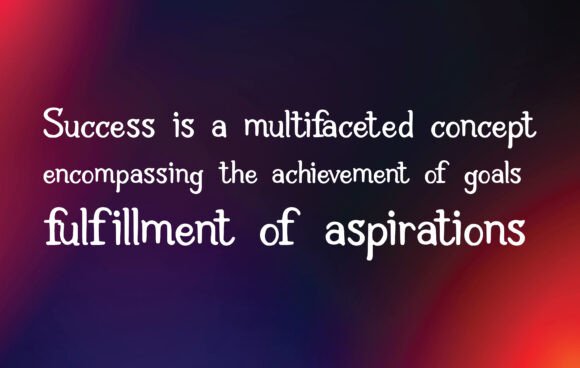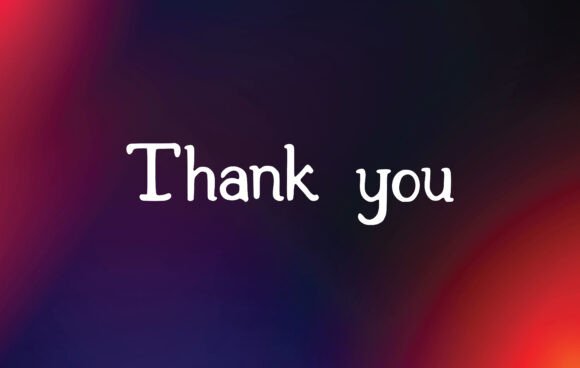
Introducing Gaura Font: Elevate Your Creative Projects with Elegance
Are you a designer, craftsperson, or creative enthusiast looking for a font that can take your projects to the next level? Look no further than Gaura Font, a stunning handwritten font that is sure to captivate your audience. With its unique blend of elegance and playfulness, Gaura Font is the perfect choice for creating eye-catching logos, branding, and quotes that leave a lasting impression.
The Beauty of Gaura Font
Gaura Font is a lovely and beautiful handwritten font that boasts a distinctive charm. Its flowing lines, delicate curves, and subtle imperfections give it a personal and human touch that sets it apart from more traditional fonts. Whether you’re looking to create a sophisticated brand identity or a whimsical design, Gaura Font is the perfect tool to bring your vision to life.
Unleash Your Creativity with Gaura Font
Gaura Font has the potential to take your creative ideas to the highest level. Its versatility and expressiveness make it an ideal choice for a wide range of design projects, from logos and branding to quotes and social media graphics. With Gaura Font, you can:
- Create stunning logos that capture the essence of your brand
- Develop a consistent visual identity across all your marketing materials
- Add a touch of elegance and sophistication to your designs
- Stand out from the crowd with a unique and eye-catching font
Why Choose Gaura Font?
So why choose Gaura Font over other fonts? Here are just a few reasons why Gaura Font stands out:
- Unique and distinctive: Gaura Font has a one-of-a-kind look that will set your designs apart from the crowd.
- Highly versatile: Gaura Font can be used for a wide range of design projects, from logos and branding to quotes and social media graphics.
- Elegant and sophisticated: Gaura Font adds a touch of elegance and sophistication to any design.
- Easy to read: Despite its ornate appearance, Gaura Font is highly legible and easy to read.
Tips for Using Gaura Font
To get the most out of Gaura Font, here are a few tips to keep in mind:
- Use it sparingly: Gaura Font is a statement font, so use it sparingly to make a maximum impact.
- Experiment with colors: Gaura Font looks great in a variety of colors, so don’t be afraid to experiment and find the perfect hue for your design.
- Pair it with other fonts: Gaura Font pairs well with a range of other fonts, so feel free to get creative and find the perfect combination for your design.
In conclusion, Gaura Font is a beautiful and versatile handwritten font that is perfect for designers, craftspersons, and creative enthusiasts looking to elevate their projects. With its unique blend of elegance and playfulness, Gaura Font is sure to captivate your audience and leave a lasting impression. So why wait? Download Gaura Font today and take your creative projects to the next level!